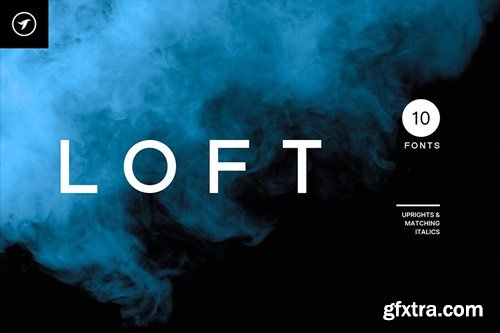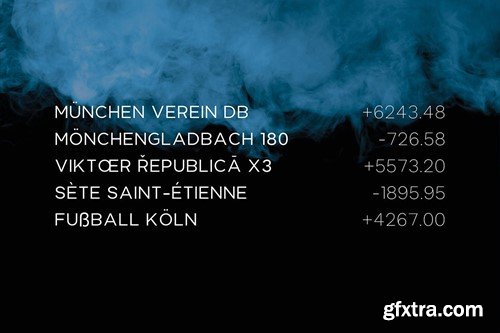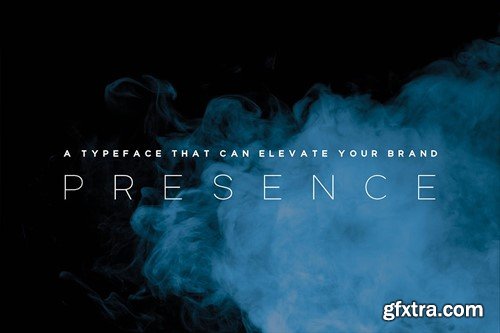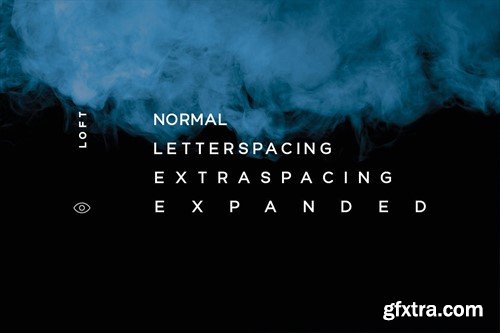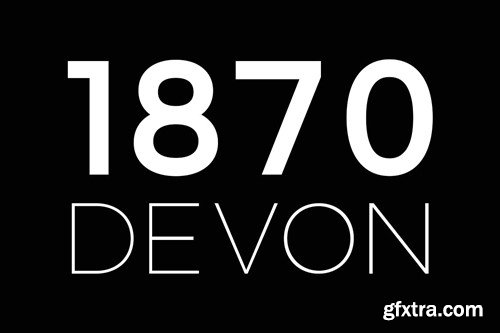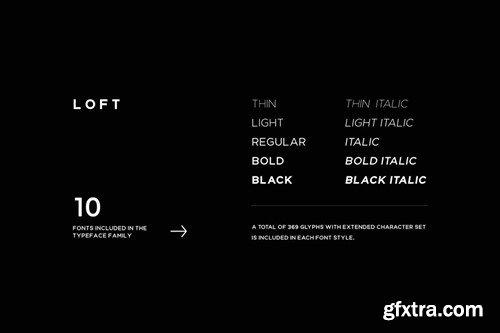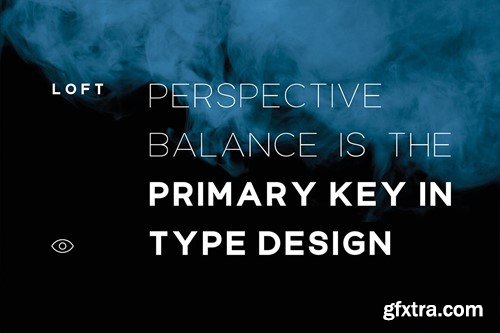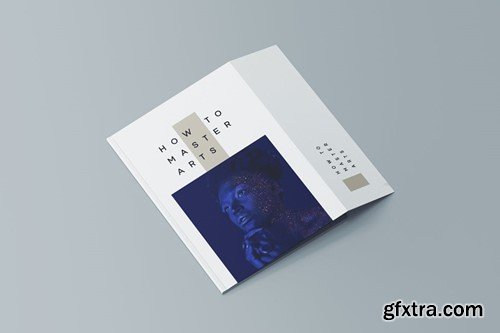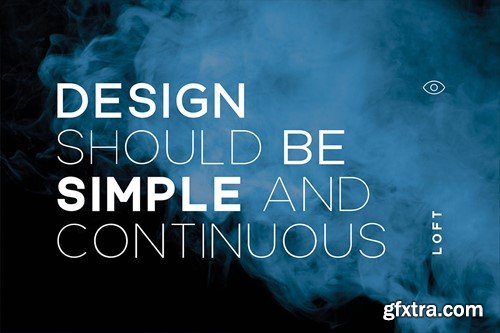
loft - minimalistic display font family mwqpyfy
ABOUT THE FONT FAMILY: LOFT is a modern and minimal font family that features a Sans Serif/Display/All-Caps style. This font family stands out due to its unique and distinctive design. It is best suited for creating branding, logotypes, headlines, corporate identities, and marketing materials for both web and print. When used for minimal designs, LOFT is particularly effective. Thanks to its efficient letter spacing options, this versatile font offers endless possibilities for modern and minimalist designs, including logos, headlines, and identities. Please see the included demo graphics to get an idea about the capability of this typeface when used for branding and marketing material design. To get a better idea of the capabilities of this font, please refer to the included demo graphics. LOFT font family comes with 14 fonts, including five upright weights (THIN / LIGHT / REGULAR / BOLD / BLACK) as well as Italic versions of all five weights. Each weight includes extended language support including Western European & Central European sets. A total of 369 glyphs are included. Desktop Font option includes OTF and TTF. Web font options include EOT, SVG, WOFF, and WOFF2 formats. You can select them as licensing options found on the right side of this page. FEATURES: LOFT font family includes a collection of 10 fonts in total, with five upright weights and Italic equivalents of all five weights as follows: 369 GLYPHS INCLUDED: Handcrafted and designed with powerful OpenType features in mind, each weight includes extensive language support with Western European, Central European, and South Eastern European sets. A total of 369 glyphs are available. EXTENSIVE LANGUAGE SUPPORT: Afrikaans • Albanian • Asu • Basque • Bemba • Bena • Bosnian • Catalan • Cebuano • Chiga • Colognian • Cornish • Corsican • Croatian • Czech • Danish • Embu • English • Esperanto • Estonian • Faroese • Filipino • Finnish • French • Friulian • Galician • Ganda • German • Gusii • Hungarian • Icelandic • Ido • Inari Sami • Indonesian • Interlingua • Interlingue • Irish • Italian • Javanese • Jju • Jola-Fonyi • Kabuverdianu • Kalaallisut • Kalenjin • Kamba • Kikuyu • Kinyarwanda • Kurdish • Latvian • Ligurian • Lithuanian • Lojban • Lombard • Low German • Lower Sorbian • Luo • Luxembourgish • Luyia • Machame • Makhuwa • Makhuwa-Meetto • Makonde • Malagasy • Malay • Maltese • Manx • Māori • Meru • Morisyen • North Ndebele • Northern Sami • Northern Sotho • Norwegian Bokmål • Norwegian Nynorsk • Nyanja • Nyankole • Occitan • Oromo • Polish • Portuguese • Rejang • Romanian • Romansh • Rombo • Rundi • Rwa • Samburu • Sango • Sangu • Sardinian • Scottish Gaelic • Sena • Shambala • Shona • Silesian • Slovak • Slovenian • Soga • Somali • South Ndebele • Southern Sotho • Spanish • Sundanese • Swahili • Swati • Swedish • Swiss German • Taita • Taroko • Teso • Tsonga • Tswana • Turkmen • Upper Sorbian • Vunjo • Walloon • Walser • Welsh • Wolastoqey • Wolof • Xhosa • Zhuang • Zulu FONT FILE FORMATS: The pack contains Desktop Fonts (OTF, TTF) and Web Fonts (all EOT, SVG, and WOFF included) as licensing options. HTML & CSS WebFont preset and demo are available in the download pack. CREDITS: Typeface designed & distributed by Designova®, made with ♥ in Berlin.